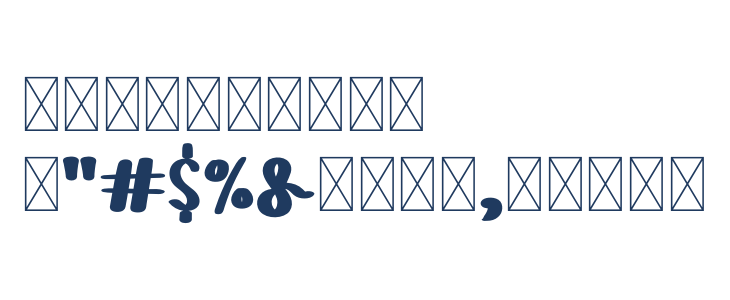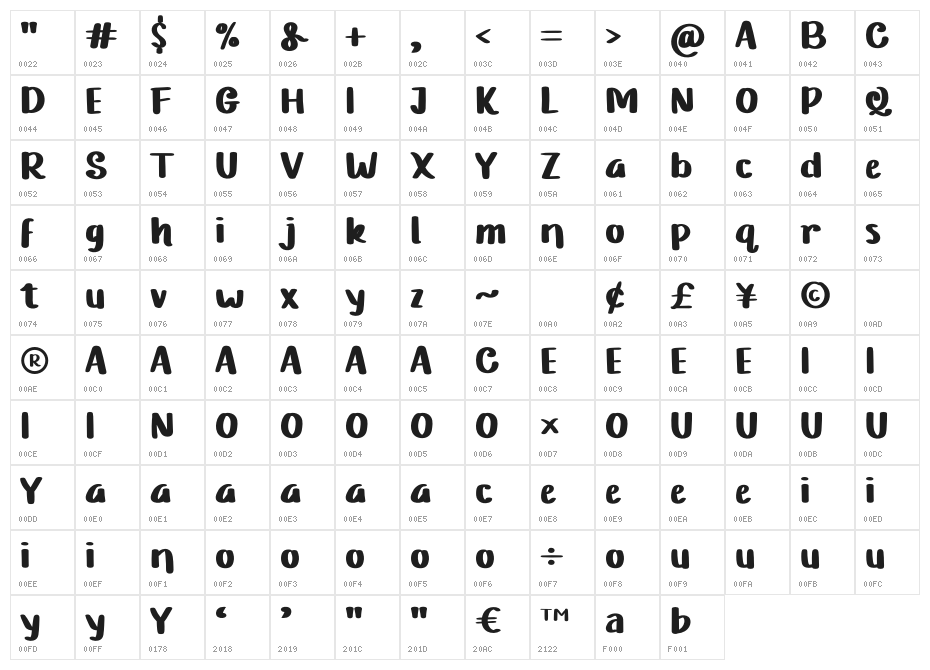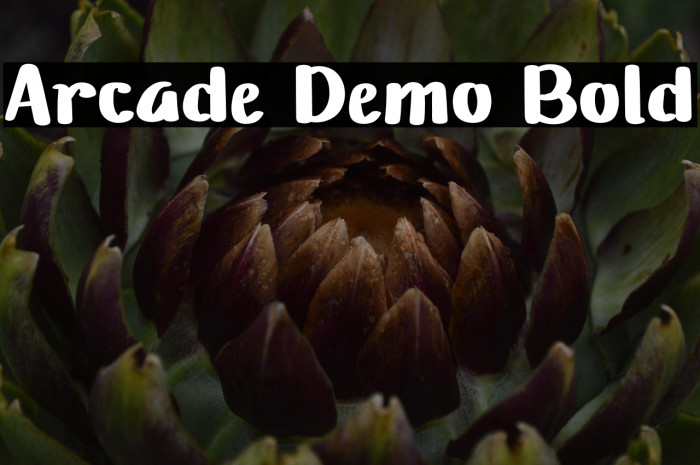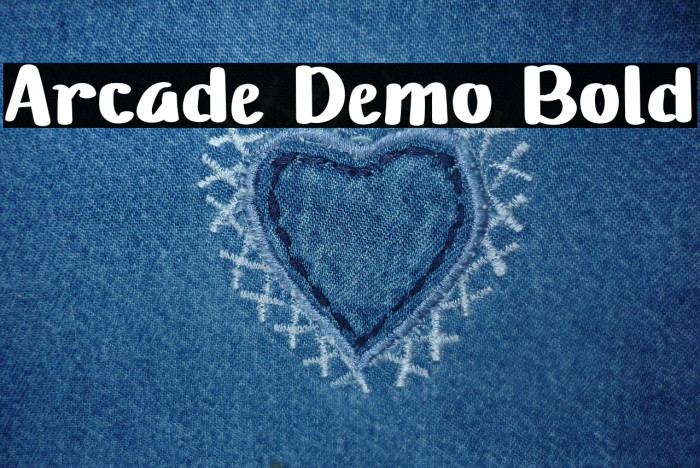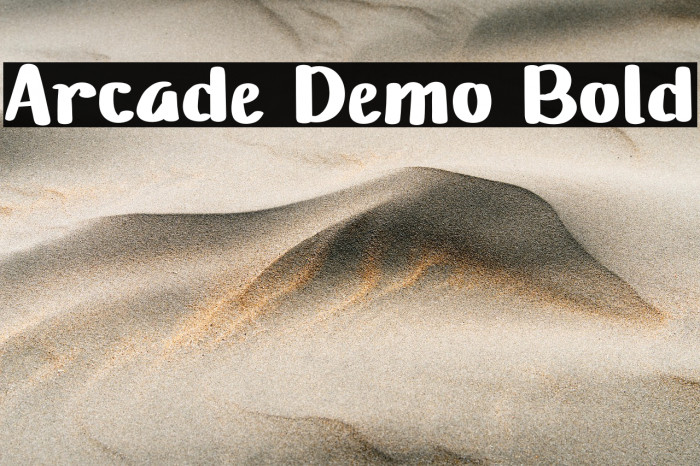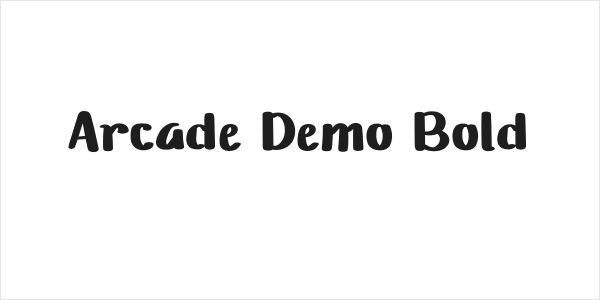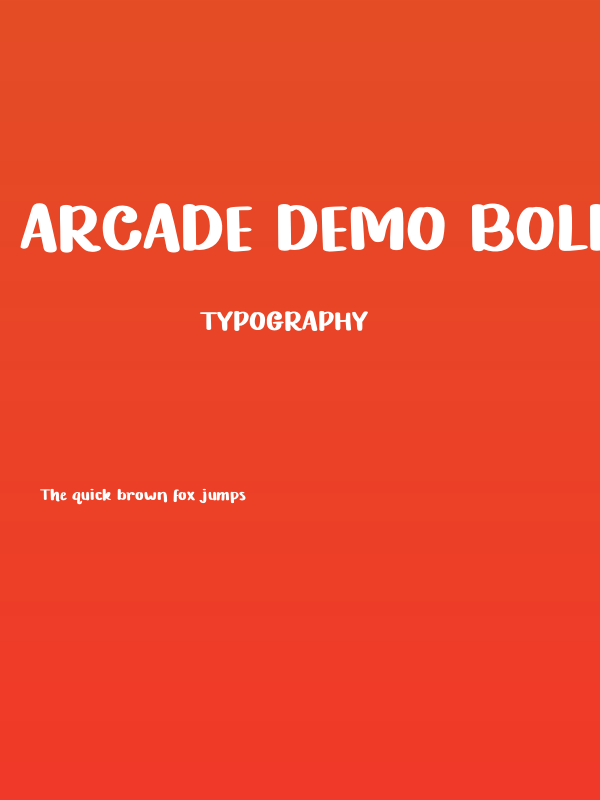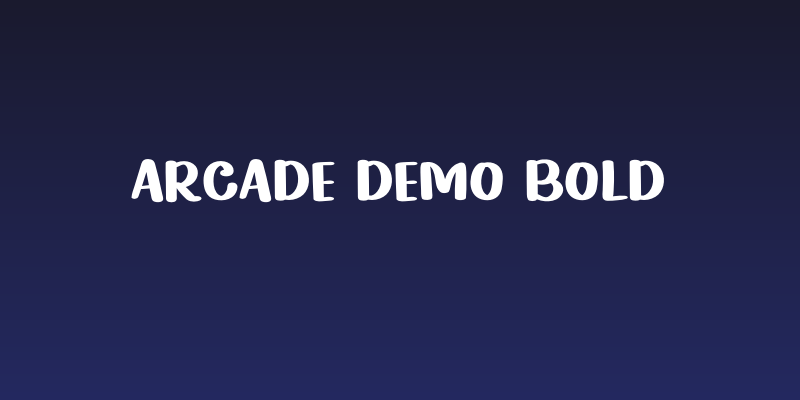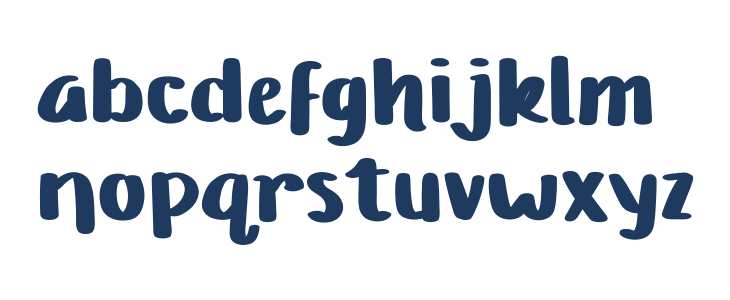
Arcade Demo Bold Font
Arcade Demo Bold Description
This font features a bold and playful style with rounded edges and a slightly retro aesthetic. The uppercase letters are robust and eye-catching, while the lowercase letters maintain a consistent thickness, contributing to a cohesive look. The characters are well-spaced, ensuring readability even at smaller sizes. The font's boldness and unique character shapes make it ideal for projects that require a fun and engaging visual impact. The special characters are designed to match the overall style, adding versatility to the font's use.
Overall StyleRetro, Playful
Proposed ProjectsPerfect for video game graphics, children's books, posters, and branding that requires a fun and engaging look.